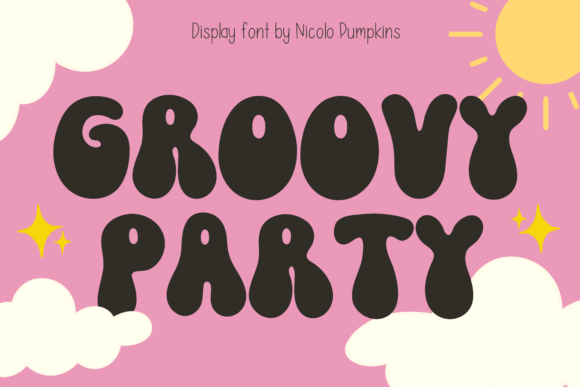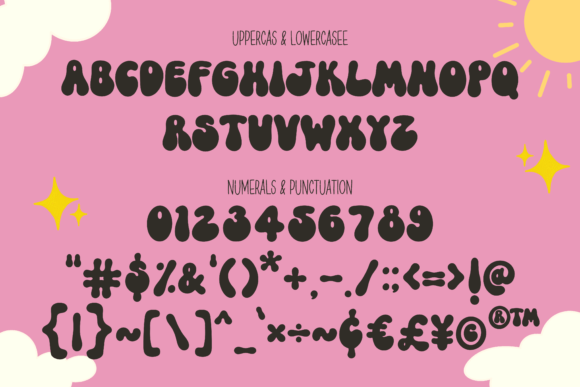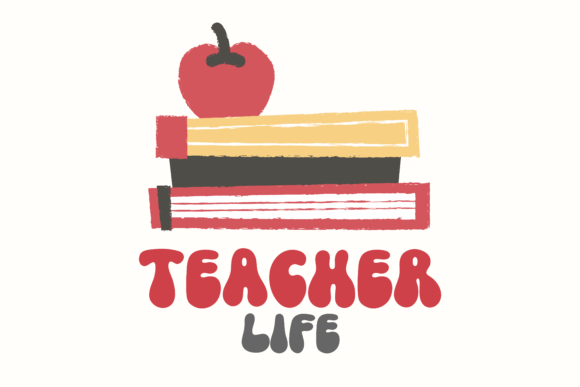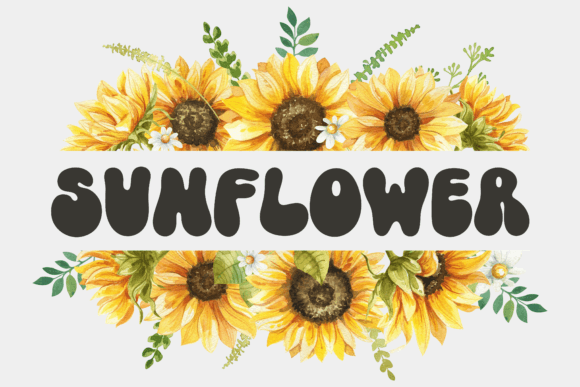
Groovy Party Font
About the Groovy Party Font
Welcome to the world of Groovy Party Font, a typeface that will inspire your next great project. Groovy Party is a cute groovy retro display font. It will be suitable for designing t-shirts, tote bags, hats, stickers, wedding designs, logos, cards, quotes, and more! Groovy Party will make any creative idea stand out and be stunning!
Groovy Party’s playful, retro style works best in headlines, short text blocks, logos, and packaging designs where its bold character can shine. It’s ideal for projects needing a fun, 70s-inspired aesthetic, such as branding for vintage clothing stores or quirky cafes. Avoid using it for body text or UI elements; its unique letterforms are less legible in large blocks of text.
Pairing Groovy Party with a clean sans-serif like Open Sans for body copy creates a balanced contrast between playful display and easily readable text. Alternatively, a classic serif like Garamond adds sophistication, tempering the font’s retro energy for a more refined outcome. For a more cohesive retro feel, consider pairing it with a geometric sans-serif font.
The font exudes a bold, fun, and undeniably retro personality. Its unique letterforms and slightly uneven baseline make it unsuitable for projects requiring high readability or a formal tone.
Groovy Party Font Usage Examples
Groovy Party Font Example